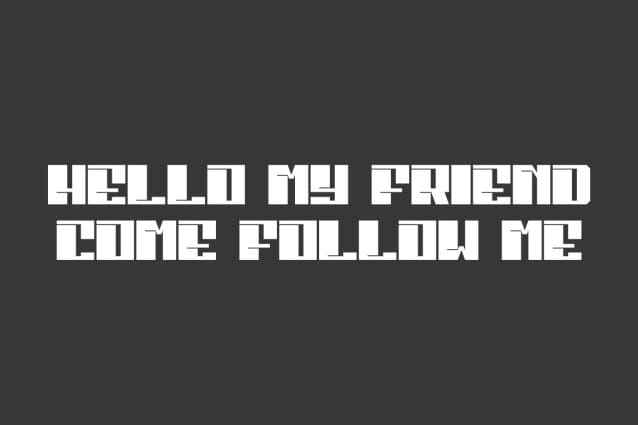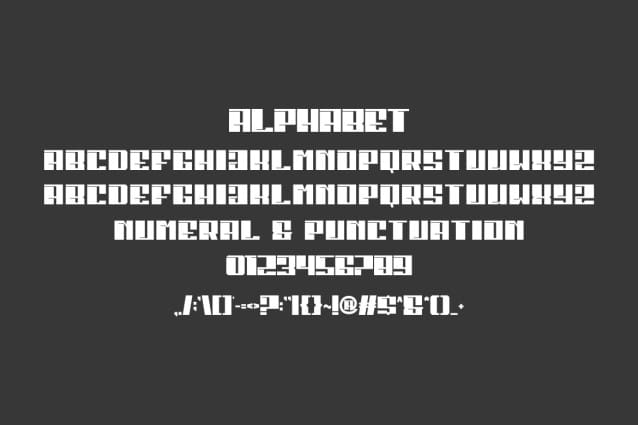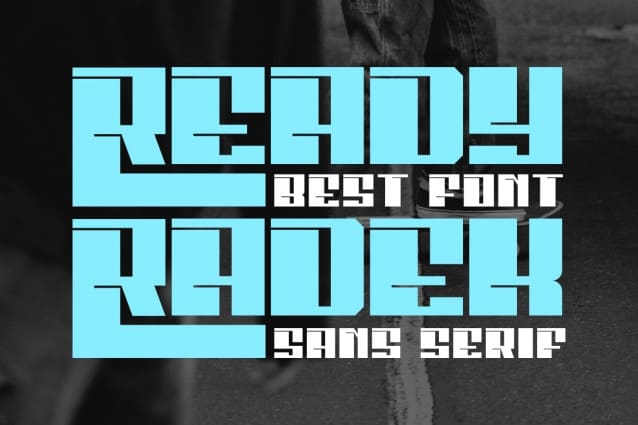
Ready Radek Font
Ready Radek Font, is a modern and simple font ideal for displaying titles, logos, branding, magazines, product packaging and invitations. ReadyRadek comes with clean lines and gentle curves to give any project a little extra a touch of class.